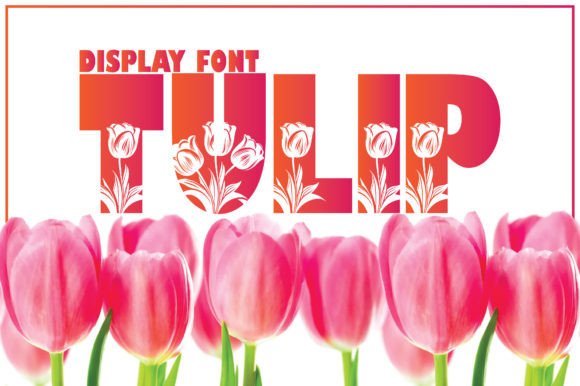
Introducing Tulip Font, the ultimate font for love and creativity! Developed by the talented AvocadoSVG, this thick lettered and incredibly unique display font is sure to captivate your imagination and elevate your designs to new heights.
With Tulip Font, the possibilities are endless. Let your creativity run wild as you explore its versatility in various design ideas. Whether you're working on children's games, scientific projects, or even space exploration themes, Tulip Font will add a touch of magic and whimsy to your creations.
Imagine the joy on children's faces as they see their favorite characters come to life with the enchanting Tulip Font. Its playful and captivating style will instantly transport them to a world of wonder and excitement. From storybooks to educational materials, Tulip Font will make learning a delightful adventure.
For science enthusiasts, Tulip Font is the perfect companion to showcase your research and discoveries. Its bold and distinct lettering will enhance the impact of your findings and captivate readers' attention. Let Tulip Font be the voice that communicates the wonders of the universe and sparks curiosity in the hearts of all who encounter it.
Space exploration takes on a whole new dimension with Tulip Font. Whether you're designing posters, websites, or merchandise for a space-themed event, this font will transport your audience to the outer reaches of the galaxy. Its celestial charm and captivating aura will leave them mesmerized, craving more of your stellar creations.